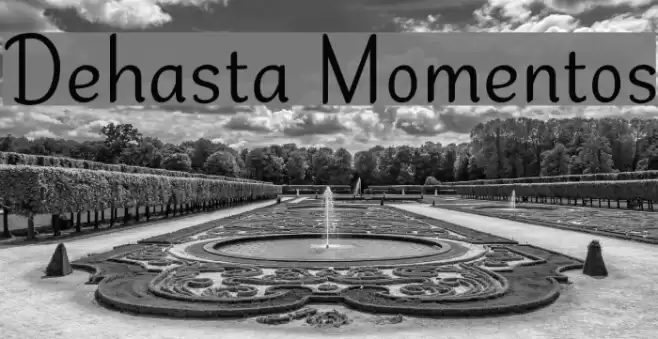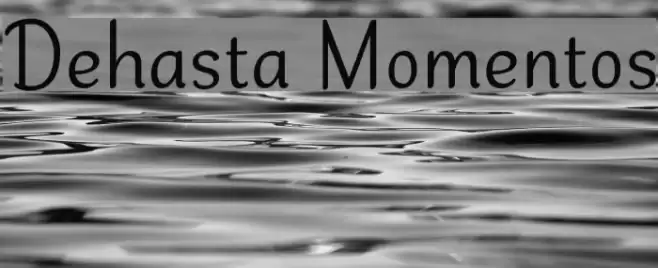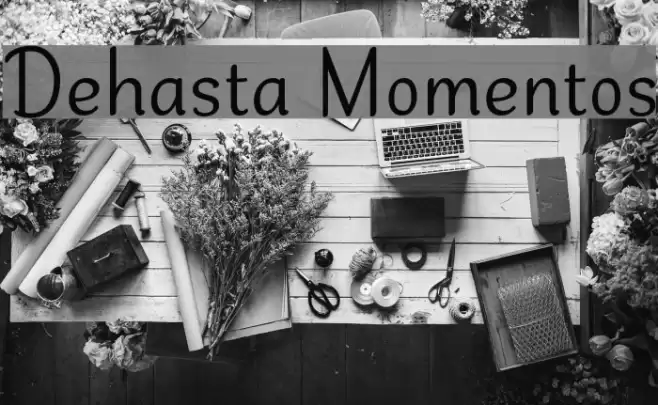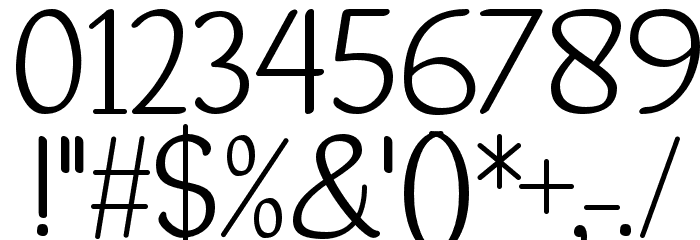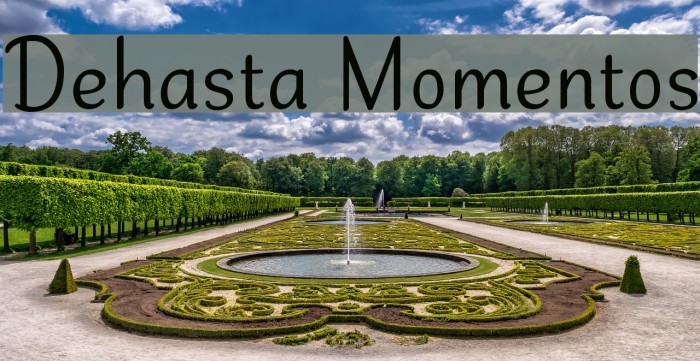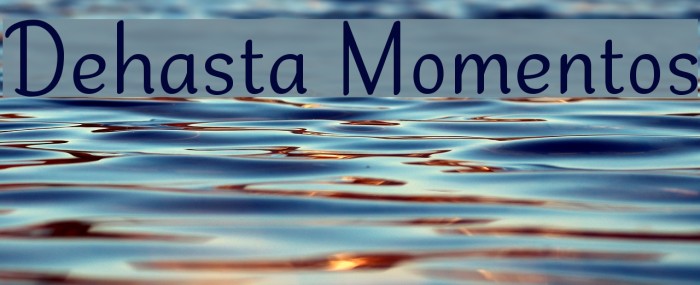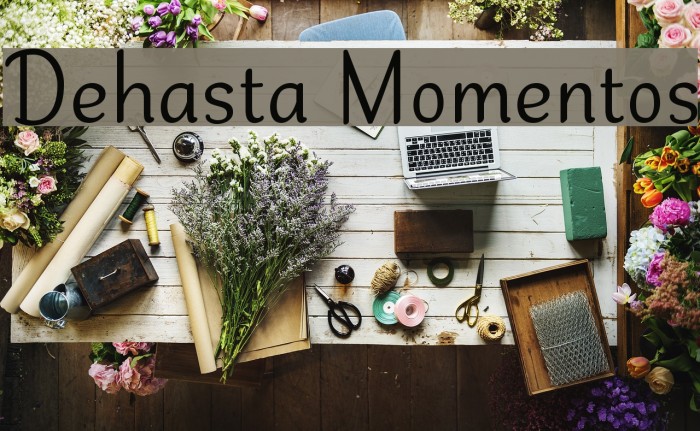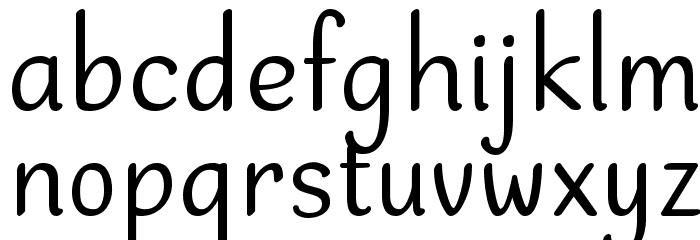
Dehasta Momentos Font
Dehasta Momentos Description
This font features a playful and casual handwritten style, characterized by its smooth curves and slightly irregular strokes. The uppercase letters are tall and narrow, while the lowercase letters maintain a consistent flow with rounded edges. The numerals are bold and clear, making them easily readable. Special characters are integrated seamlessly, adding to the font's versatility. The overall appearance is friendly and approachable, making it suitable for informal and creative projects.
A playful, handwritten font with smooth curves and a casual style from Uncategorized fonts.
- Proposed Projects: Ideal for greeting cards, children's books, casual branding, and social media graphics.
- Overall Style: Casual
- Use Case: Headlines, Informal text, Creative projects